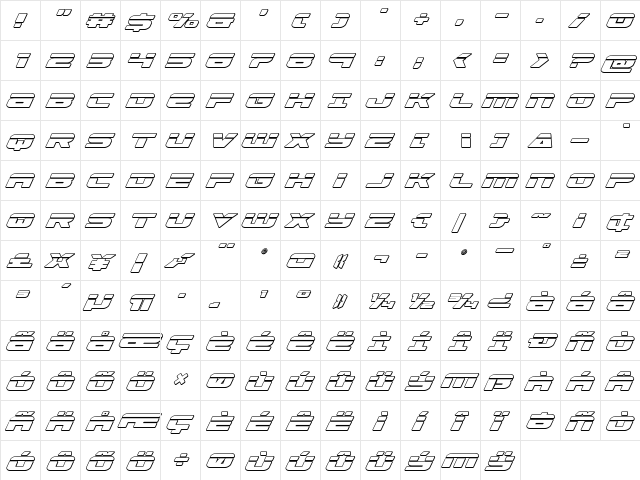
Speed Phreak Outline Italic Outline Italic
Design Context for Speed Phreak Outline Italic Typeface
Speed Phreak Outline Italic brings ornamental detail and strong personality to headlines and identities, where visual impact matters more than quiet functionality. The slanted form adds forward momentum and visual energy.
Font Pairing: Pair with a clean neutral sans-serif for body copy to let Speed Phreak Outline Italic's character lead without overwhelming the composition.
Pro Tip: Treat Speed Phreak Outline Italic as the centrepiece of your typographic hierarchy. One strong heading set in a decorative face can carry an entire layout.